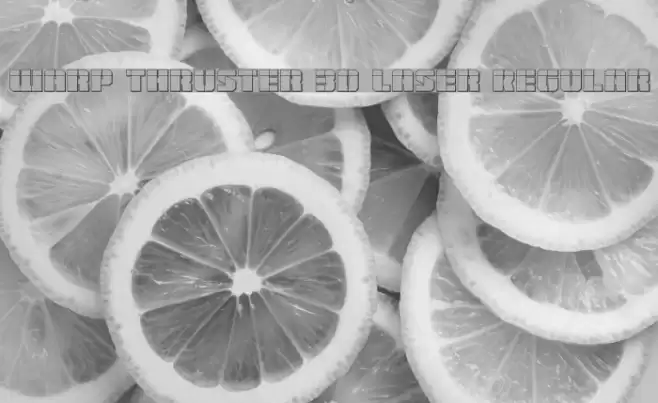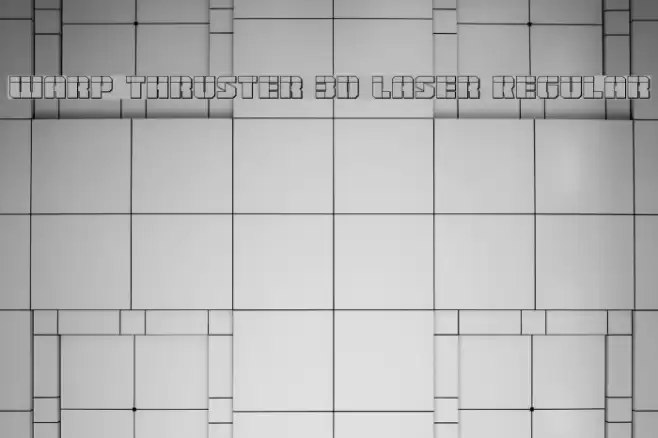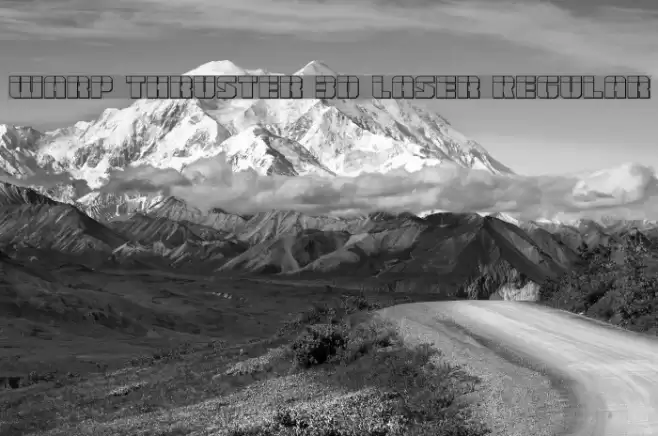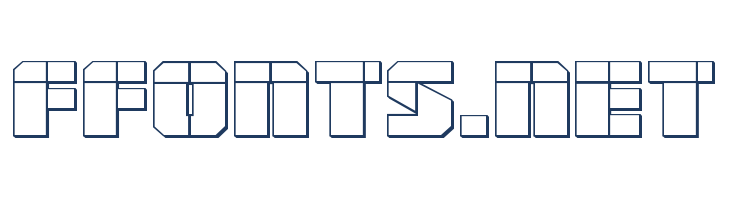
Warp Thruster 3D Laser Regular Font
Warp Thruster 3D Laser Regular Description
This font exhibits a futuristic and geometric design, characterized by its bold, three-dimensional appearance. Each character is constructed with a blocky, angular style that gives a sense of depth and structure. The letters are outlined, creating a hollow effect that enhances the 3D illusion. This design is consistent across uppercase, lowercase, numbers, and special characters, maintaining a cohesive look. The font's unique style makes it stand out, ideal for projects that require a modern and tech-inspired aesthetic.
A futuristic, 3D geometric font with a bold, outlined style from Uncategorized fonts.
- Proposed Projects: Ideal for sci-fi themed designs, video game titles, tech branding, and futuristic posters.